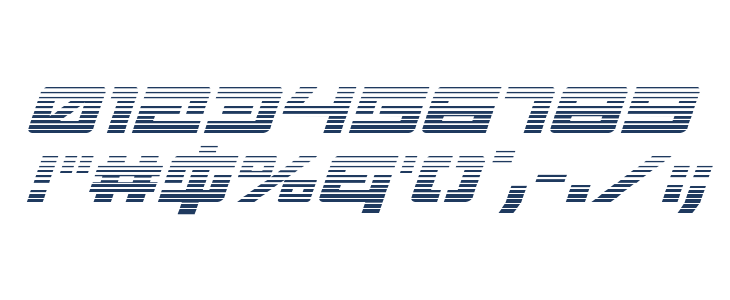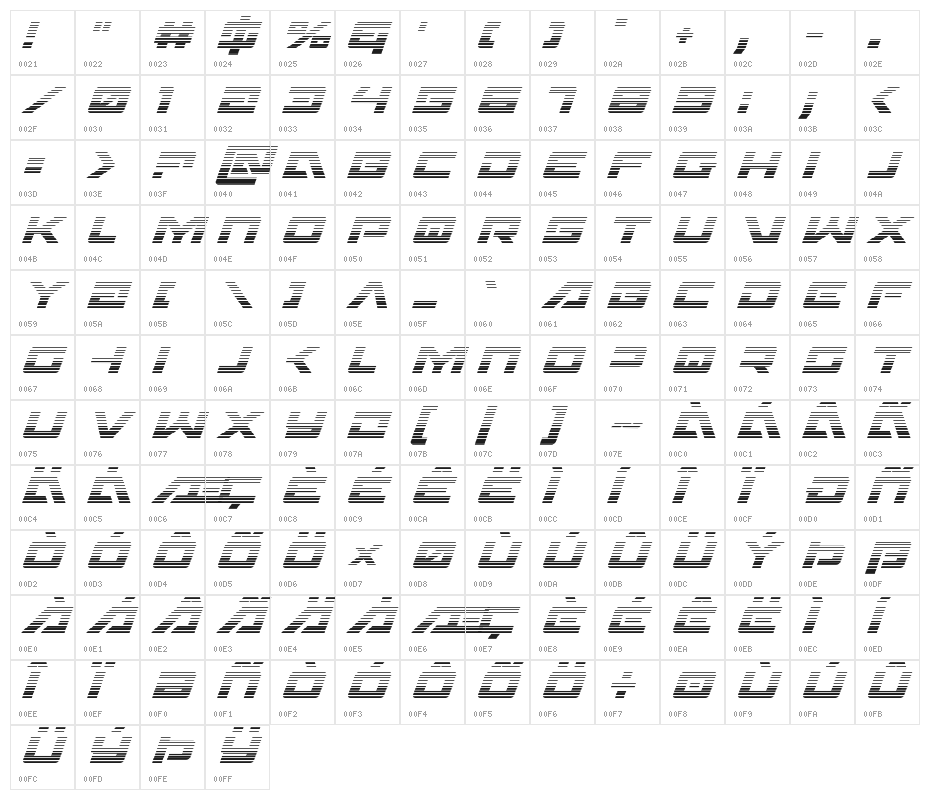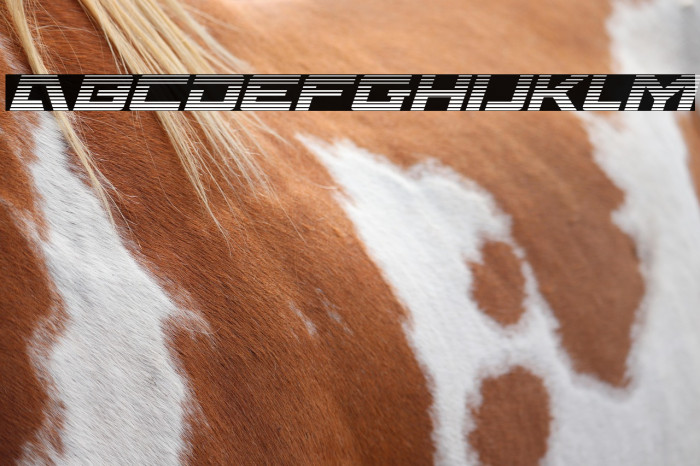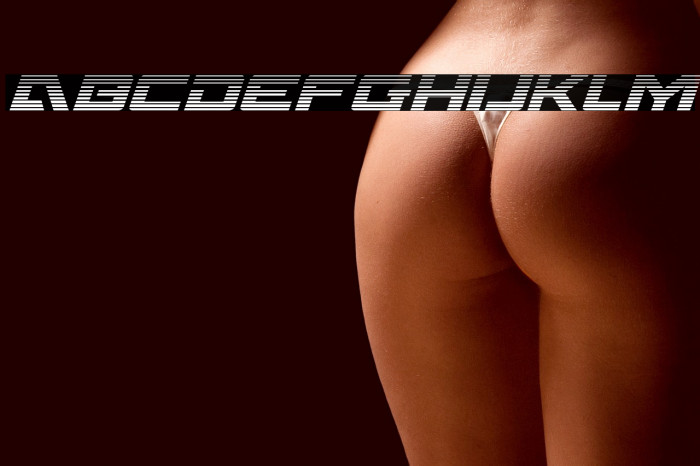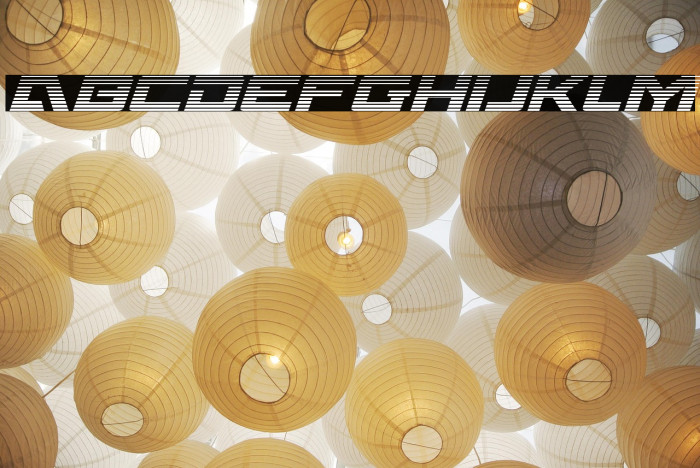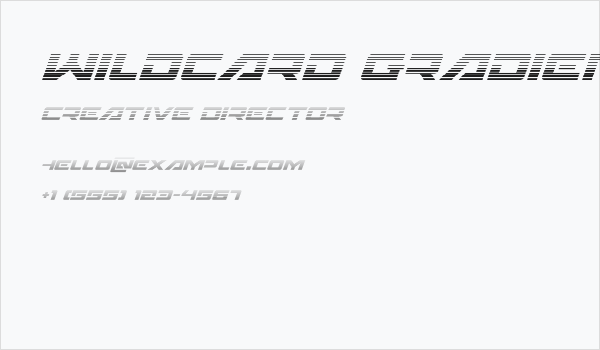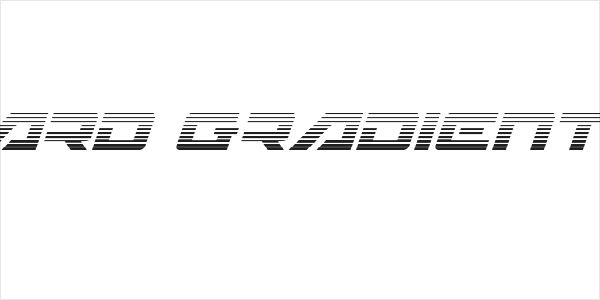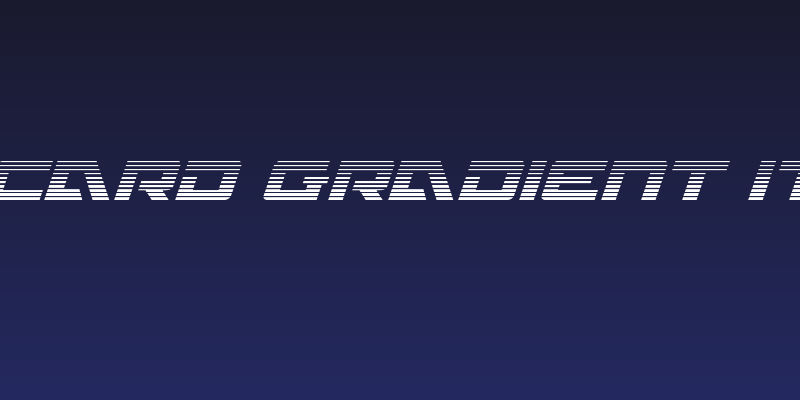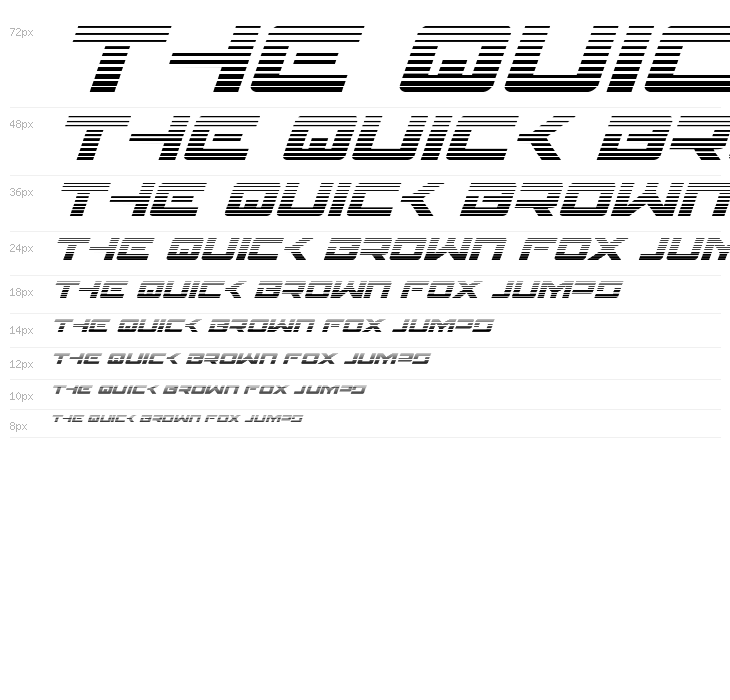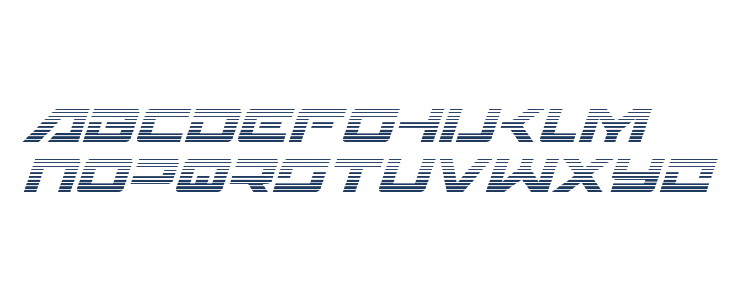
Wildcard Gradient Italic Font
Wildcard Gradient Italic Description
This font features a dynamic and futuristic design with a distinct italic slant. The characters are composed of horizontal lines that create a gradient effect, giving a sense of motion and speed. The uppercase and lowercase letters maintain a consistent style, with sharp angles and clean edges. Numbers and special characters are designed to match the overall aesthetic, ensuring uniformity across all glyphs. The font's unique style makes it ideal for projects that require a modern and edgy look.
| Proposed Projects | Ideal for technology branding, sports team logos, futuristic posters, and video game titles. |